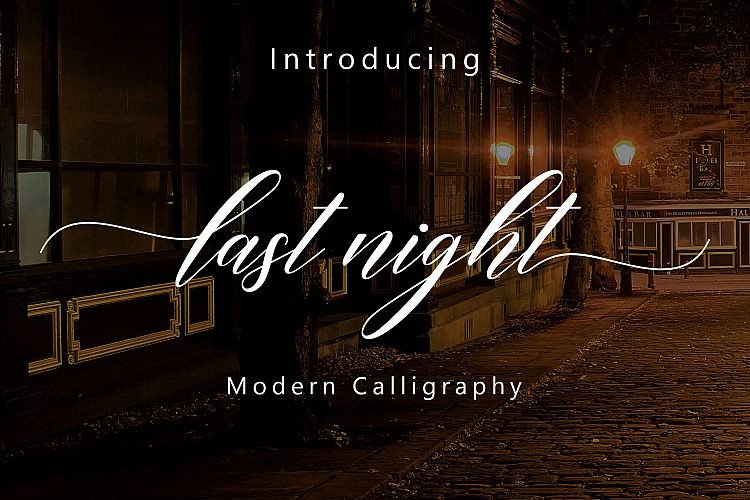
Last Night Script Font
Last Night Font – Script calligraphy an elegant new font! This font is specially created for those of you who need a touch of elegance to design your projects next with perfect results and amazing. Last Night designed and shared by Takiy. LastNight Script Font a very beautiful and interesting script, and comes with a perfect line for use for various purposes. Like titles, signatures, logos, correspondence, wedding invitations, letterheads, nameplate, labels, bulletins, posters, badges, Branding, Greeting Cards, etc.
LastNight Script come with 220+ glyphs. The alternative characters were divided into several Open Type features such as Swash, Stylistic Sets, Stylistic Alternates, Contextual Alternates.